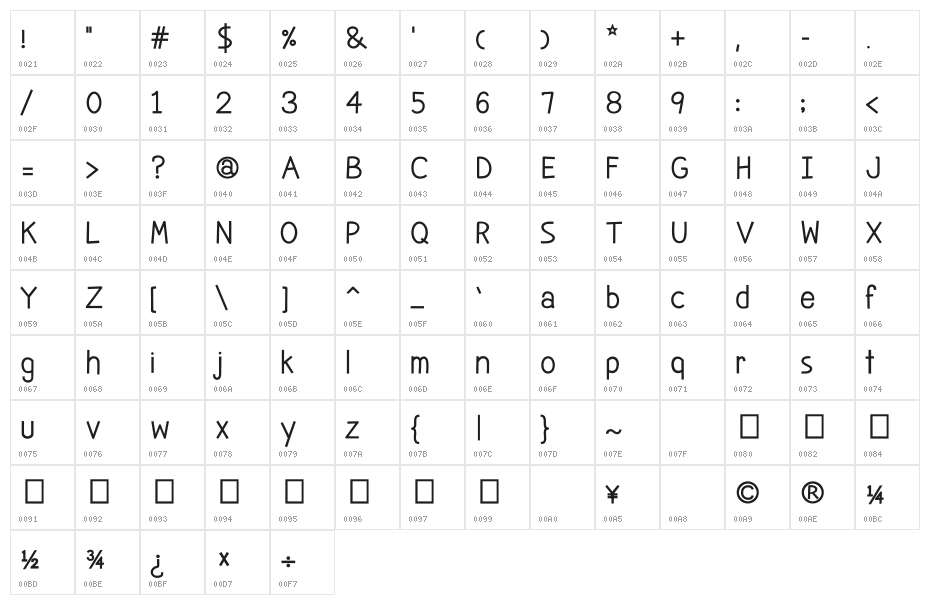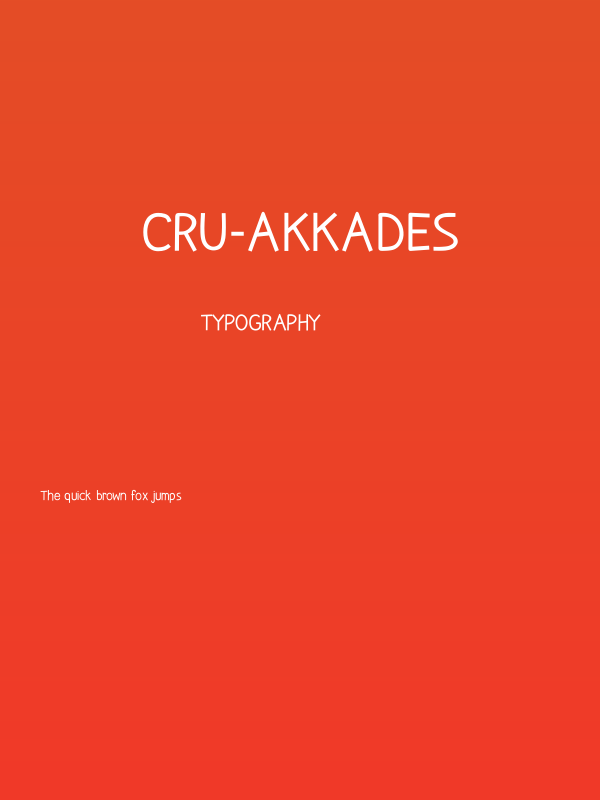
CRU-Akkades Font
CRU-Akkades Description
This font features a clean and modern sans-serif style with a geometric structure. The characters are uniform in width, providing a balanced and harmonious appearance. The uppercase letters are bold and assertive, while the lowercase letters maintain a consistent height, enhancing readability. The numerals are clear and distinct, making them suitable for various applications. Special characters are well-defined, adding versatility to the font. The overall design is minimalistic, making it ideal for contemporary projects that require a sleek and professional look.
| Proposed Projects | Ideal for branding, web design, advertising, and editorial layouts. |